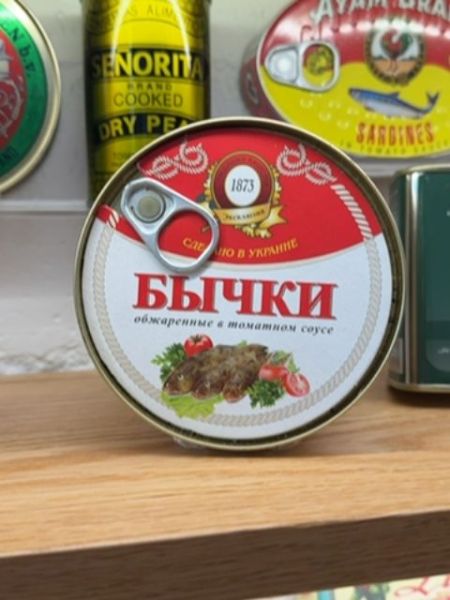
Бычки
Canned bullhead fish fried in tomato sauce.
1873
Ukraine
The typography utilizes bold Cyrillic script in a deep red color, which stands out against the white background. The font style is traditional and bold, adding to the product's authenticity and drawing attention to the brand name.
The packaging is a round tin can with a pull-tab, featuring a prominent red and white label. The label showcases an image of the product along with decorative elements and traditional motifs, giving it an authentic and classic appearance.